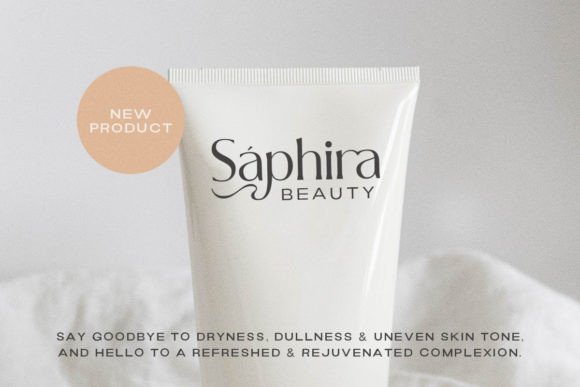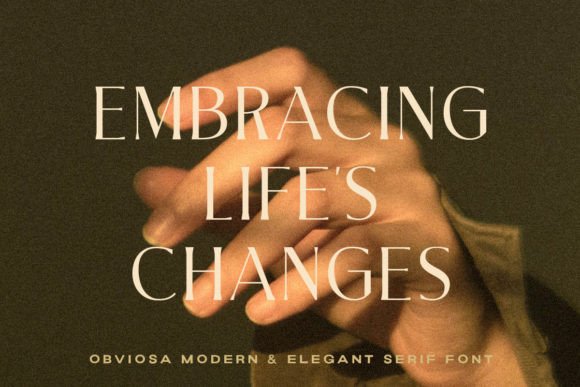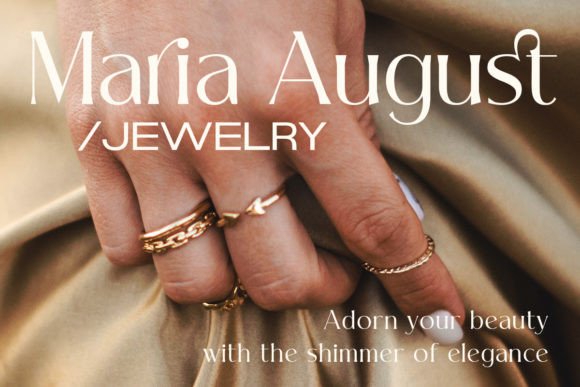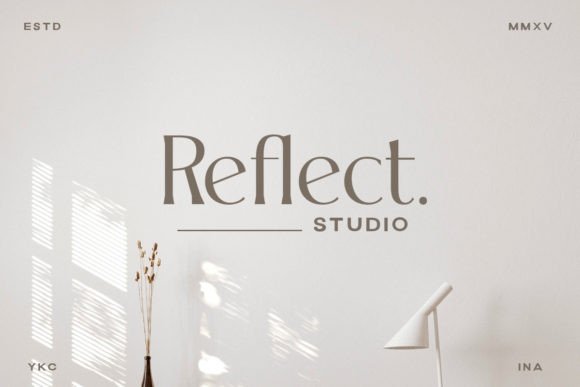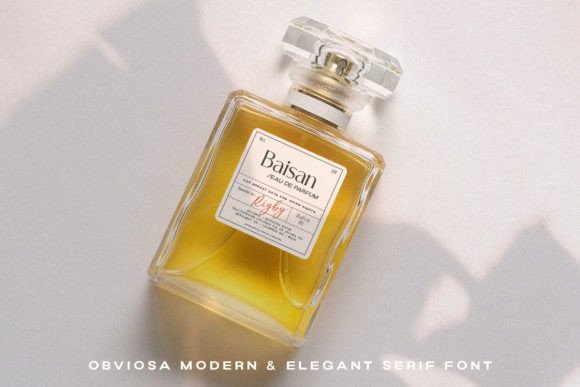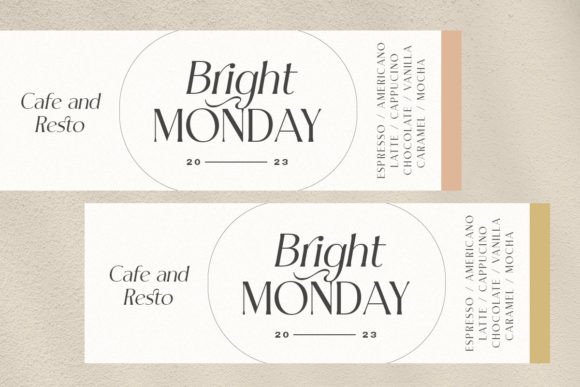
Introduction to Obviosa Font
Imagine you’re a designer, and you’re working on a high-profile project – a luxury brand’s new campaign, or a high-end wedding invitation. You’re searching for the perfect font to convey the essence of elegance and sophistication. The perfect font can make or break the design, and that’s where Obviosa Font comes in.
With its slim strokes and refined aesthetic, Obviosa Font is a valuable resource for designers who need to create a lasting impression. Its modern yet classic design makes it perfect for upscale design projects, from business presentations to wedding invitations. Whether you’re a seasoned designer or just starting out, Obviosa Font is a high-quality choice that can elevate your creative project to the next level.
Key Features of Obviosa Font
- Unique characteristics: elegant, modern design with a clean and minimalist aesthetic
Honest Review: Obviosa Font
I recently stumbled upon the Obviosa Font, and I must say it’s been a pleasant surprise. As a designer, I’m always on the lookout for high-quality design resources to elevate my creative projects. The Obviosa Font definitely delivers.
- ✨ Clean and modern design aesthetic that’s perfect for contemporary creative projects.
- ✨ High-quality typography with a transparent background, making it easy to use on any design.
- ⚠️ Limited font weights and styles, which might not be ideal for projects requiring a wide range of typography options.
- ⚠️ Not as versatile as some other fonts on the market, which might make it less suitable for certain design applications.
Overall, I’m impressed with the Obviosa Font, and I think it’s a great addition to any designer’s toolkit. While it may have some limitations, its clean design and high-quality typography make it a valuable resource for creative projects.
Tips for Getting the Most Out of Obviosa Font
For a high-quality design, use the Obviosa Font in conjunction with other design resources. Experiment with different font sizes, colors, and styles to create a unique and creative project. You can also use the Obviosa Font in combination with images and graphics to add depth and visual interest.
The Obviosa Font is ideal for a variety of creative projects, including business cards, brochures, and social media graphics. You can also use the Obviosa Font in educational materials, such as presentations and reports. With its high-quality design and transparent background, the Obviosa Font is a valuable design resource for any creative project.